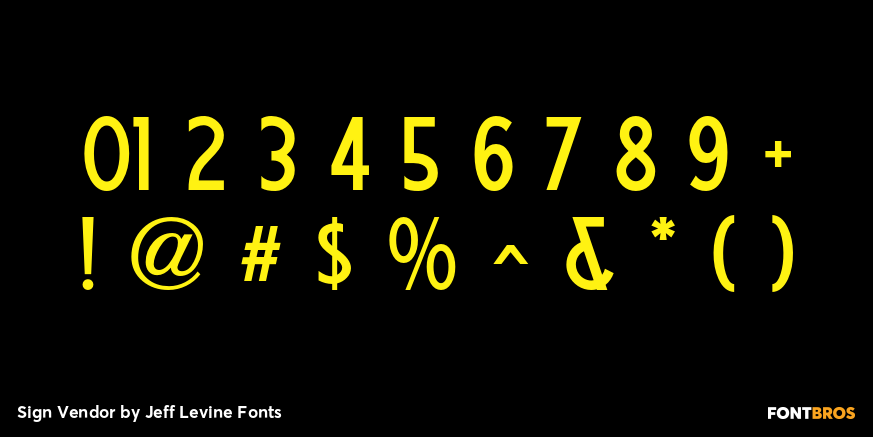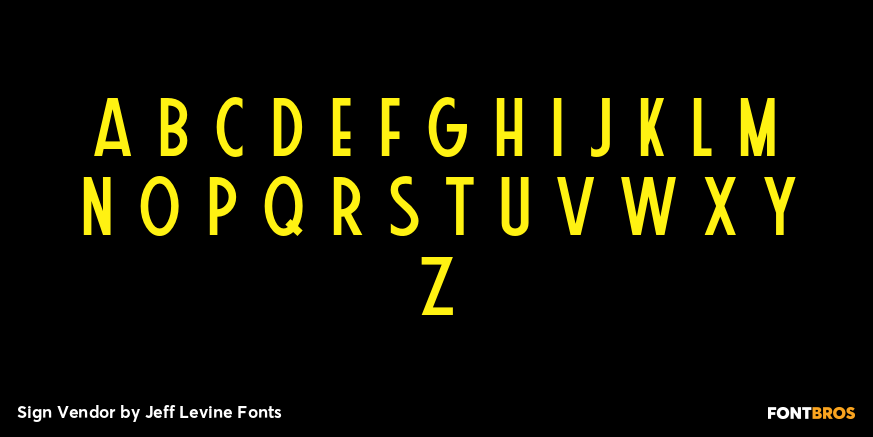
Sign Vendor
Sign Vendor JNL is a simple sans modeled from hand-lettering with a touch of Art Deco influence. The design is from a 1930s poster promoting winter activities in New York State.
Sign Vendor JNL Regular by Jeff Levine Fonts